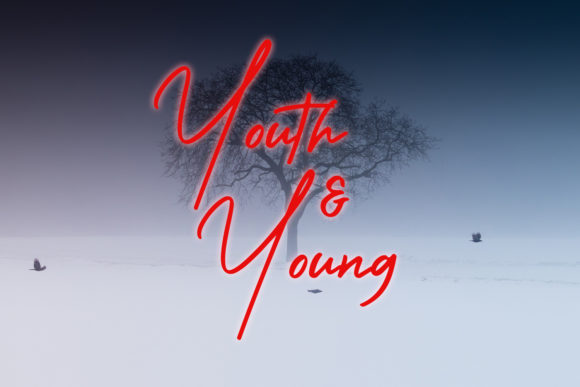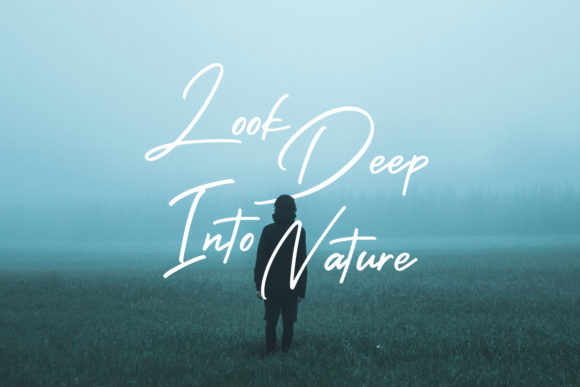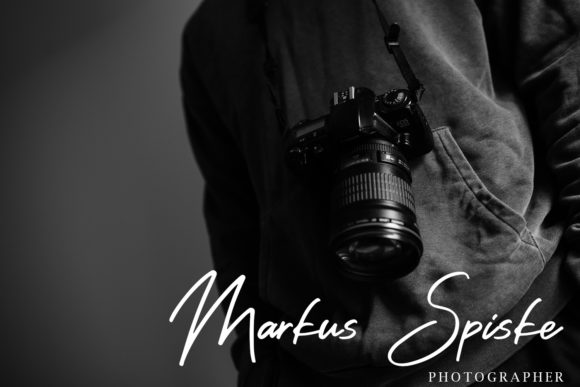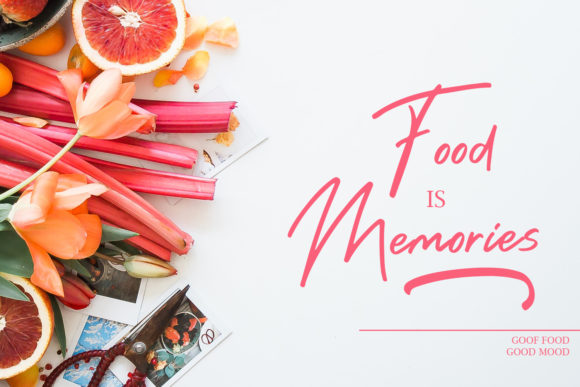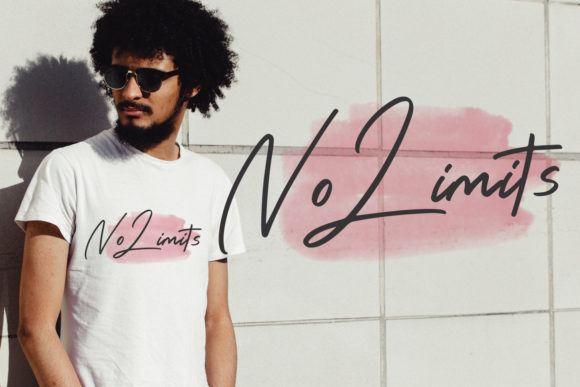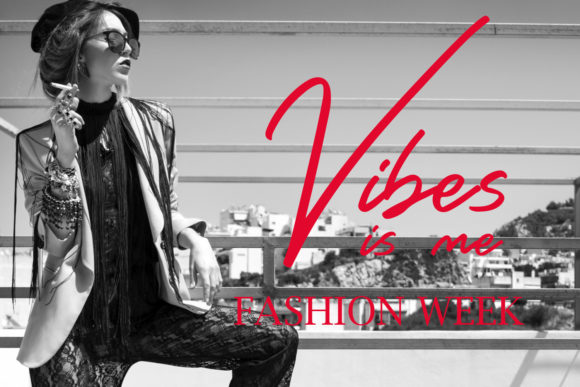
Introduction to Khatulistiwa Font
Khatulistiwa is a bold and effortlessly cool script font with a dynamic feel.
Khatulistiwa is a bold and effortlessly cool script font with a dynamic feel!
Key Features of Khatulistiwa Font